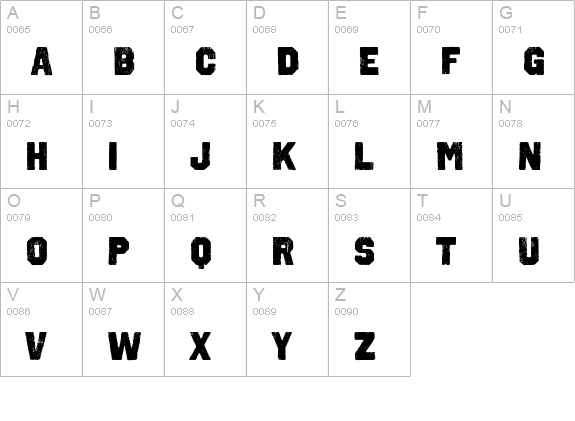
Octin Vintage A Bl Font Details
Octin Vintage A Bl font is a captivating and versatile typeface that exudes a sense of nostalgia and vintage charm. With its bold and distinctive letterforms, this font is perfect for creating eye-catching designs that demand attention. Whether you're working on a poster, logo, or branding project, Octin Vintage A Bl font will add a touch of retro flair to your work. The best part is that Octin Vintage A Bl font is available for free download at FontsMarket.com. This means you can easily access this unique and stylish font without any cost, making it a valuable addition to your design toolkit. Don't miss out on the opportunity to enhance your projects with the timeless appeal of Octin Vintage A Bl font. Download it now and start creating stunning designs that stand out from the crowd.